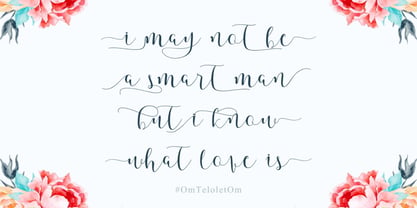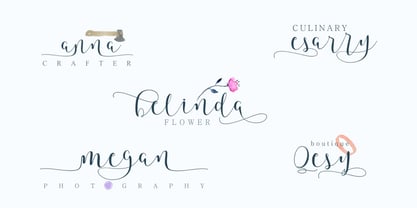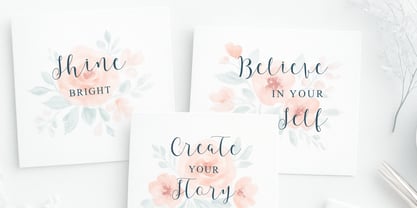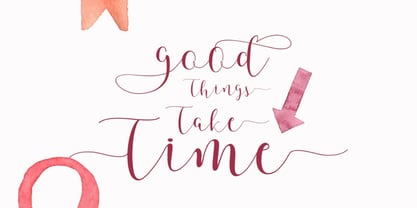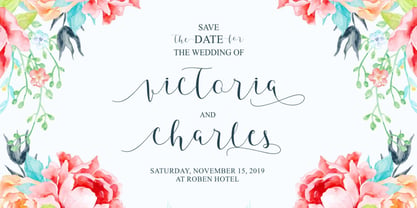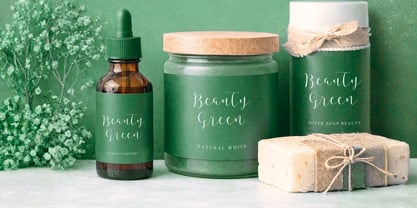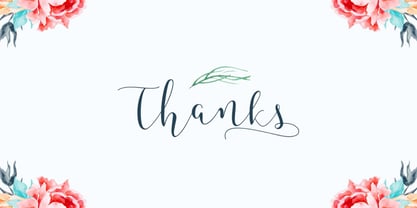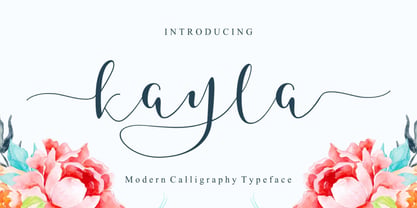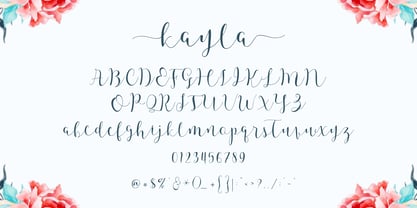
Kayla Elegant Script
by BonjourType
Kayla Script is a modern calligraphy typeface that flows with a sweet and graceful rhythm. Featuring decorative swashes and a lively dancing baseline, this script brings a romantic and expressive personality to every word. Carefully crafted with smooth curves and natural movement, Kayla Script feels both elegant and playful — perfect for creating designs that truly stand out. Whether used for wedding invitations, greeting cards, logotypes, branding materials, business cards, quotes, posters, or social media graphics, it adds a touch of charm and sophistication to any project. Let your typography dance beautifully with Kayla Script — where every letter tells a story with style and grace.